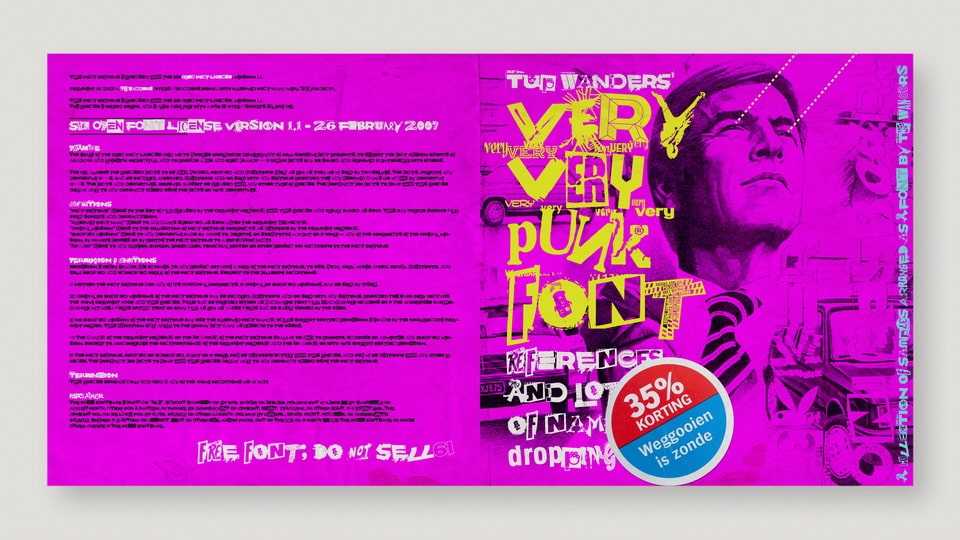
Download Very Very Punk font, a unique display typeface designed with punk elements and aesthetics, but also the same obnoxious traits that come with the subculture.
Designer: Tup Wanders